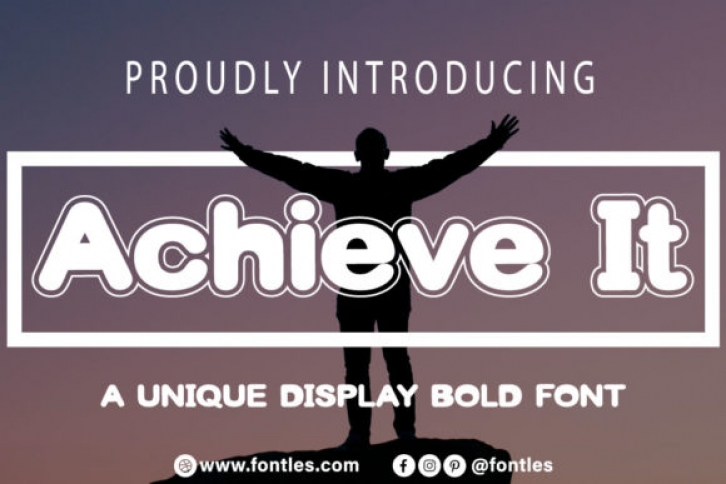
Achieve It is a bold and chunky lettered display font that is great for all kinds of casual projects. It can be used for various purposes such as logos, wedding invitations, headings, t-shirts, letterhead, signage, labels, news, posters, badges and so much more.